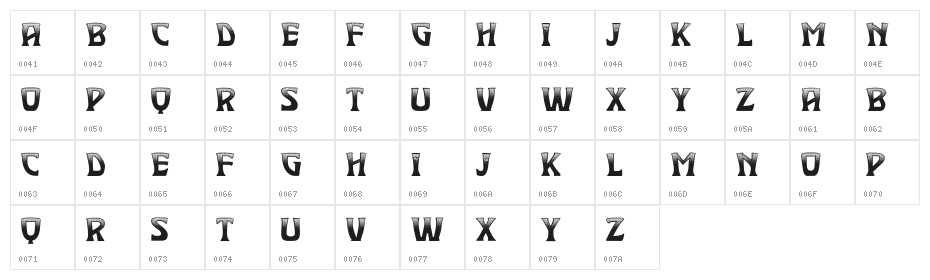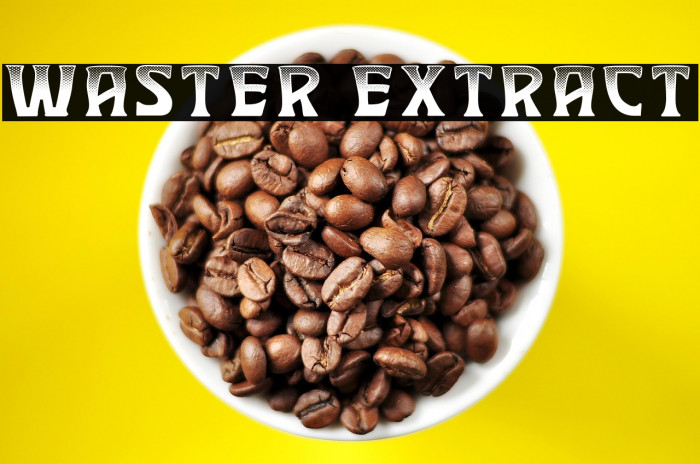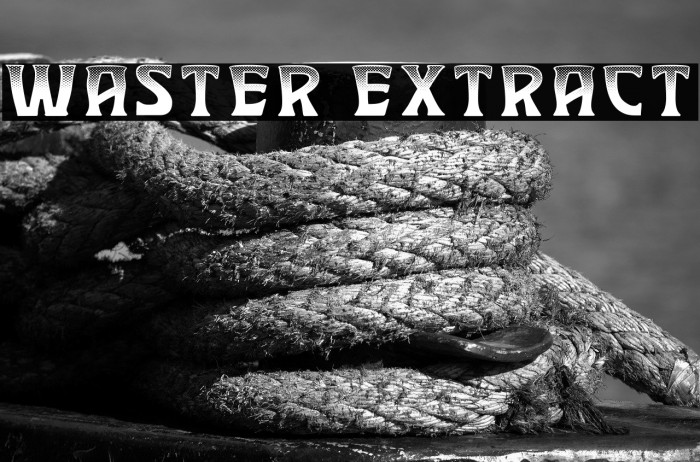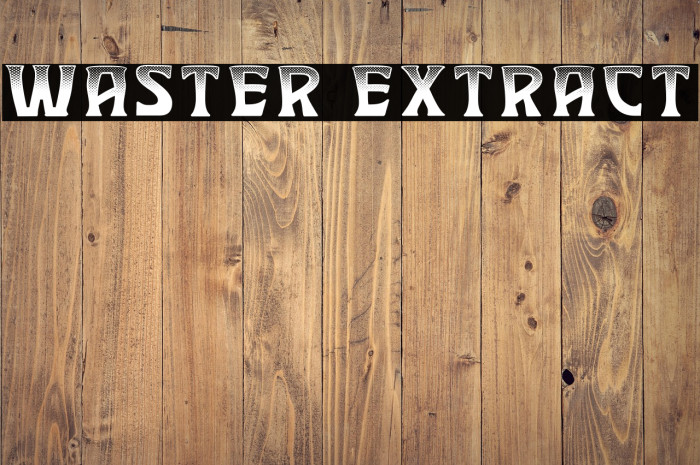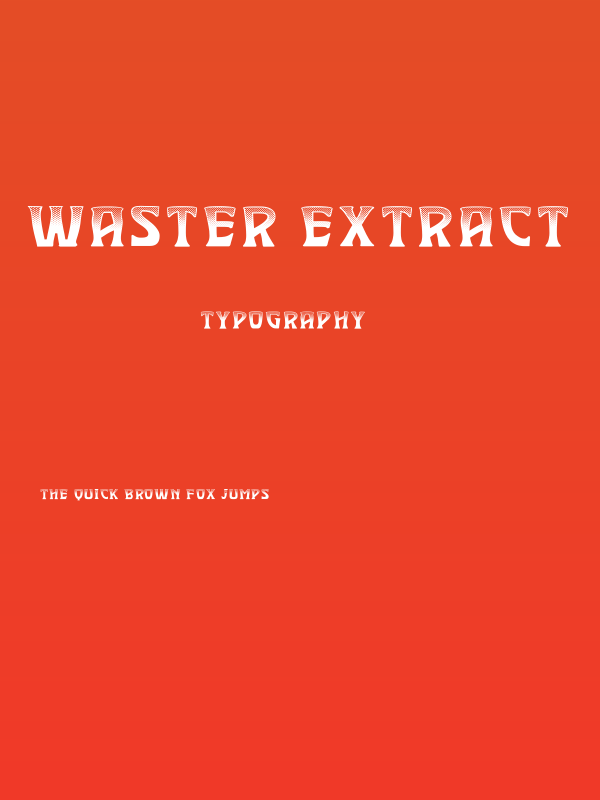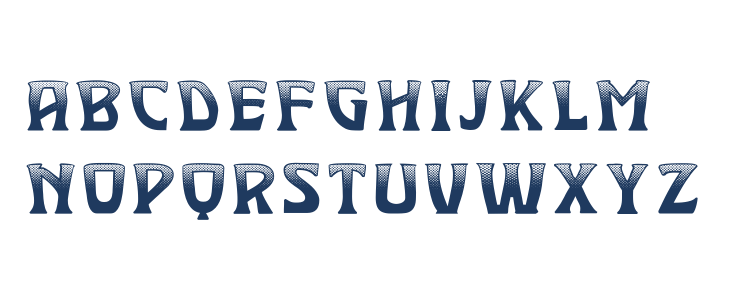
Waster Extract Font
Waster Extract Description
This font features a bold and dynamic style with a textured, distressed appearance that gives it a unique, edgy look. The uppercase letters are characterized by sharp, angular lines and a slightly condensed form, creating a sense of movement and energy. The texture within each character adds depth and a tactile quality, making it stand out in any design. This font is ideal for projects that require a strong visual impact and a modern, unconventional aesthetic.
| Overall Style | Modern, Edgy |
| Proposed Projects | Perfect for album covers, posters, branding for edgy or alternative products, and any design needing a strong, impactful font. |